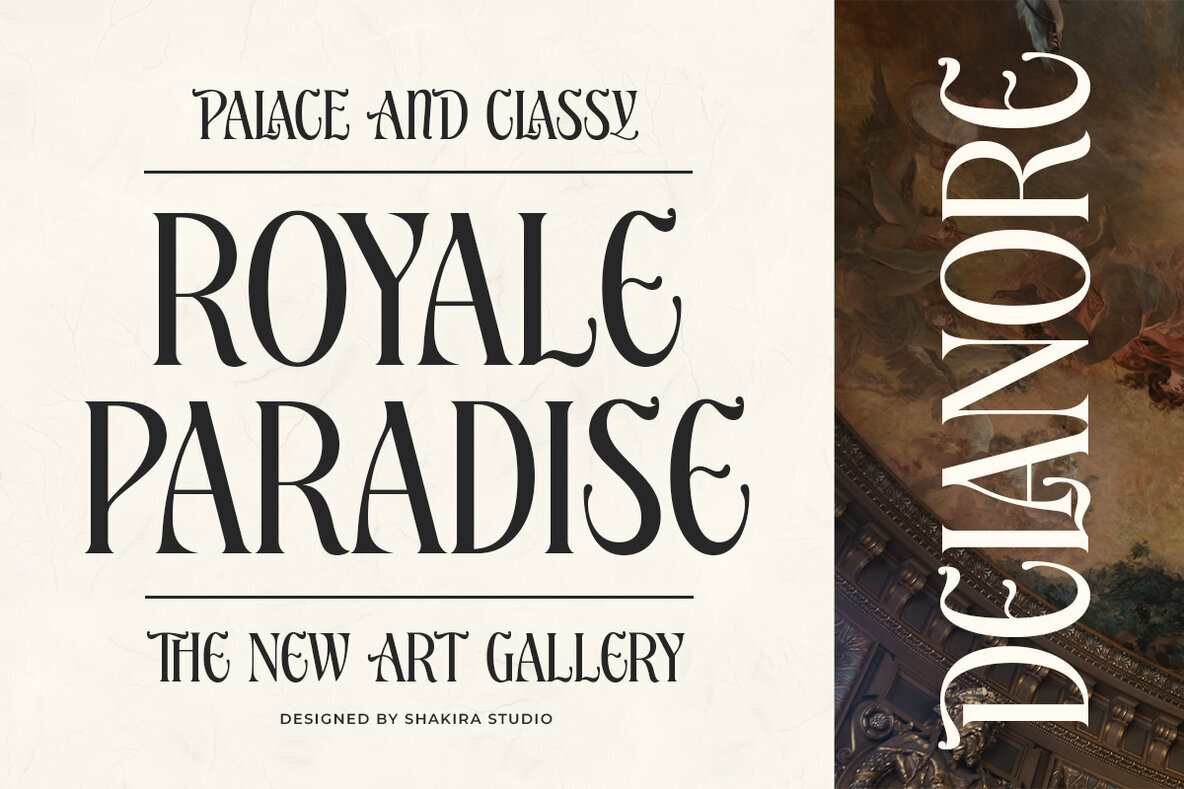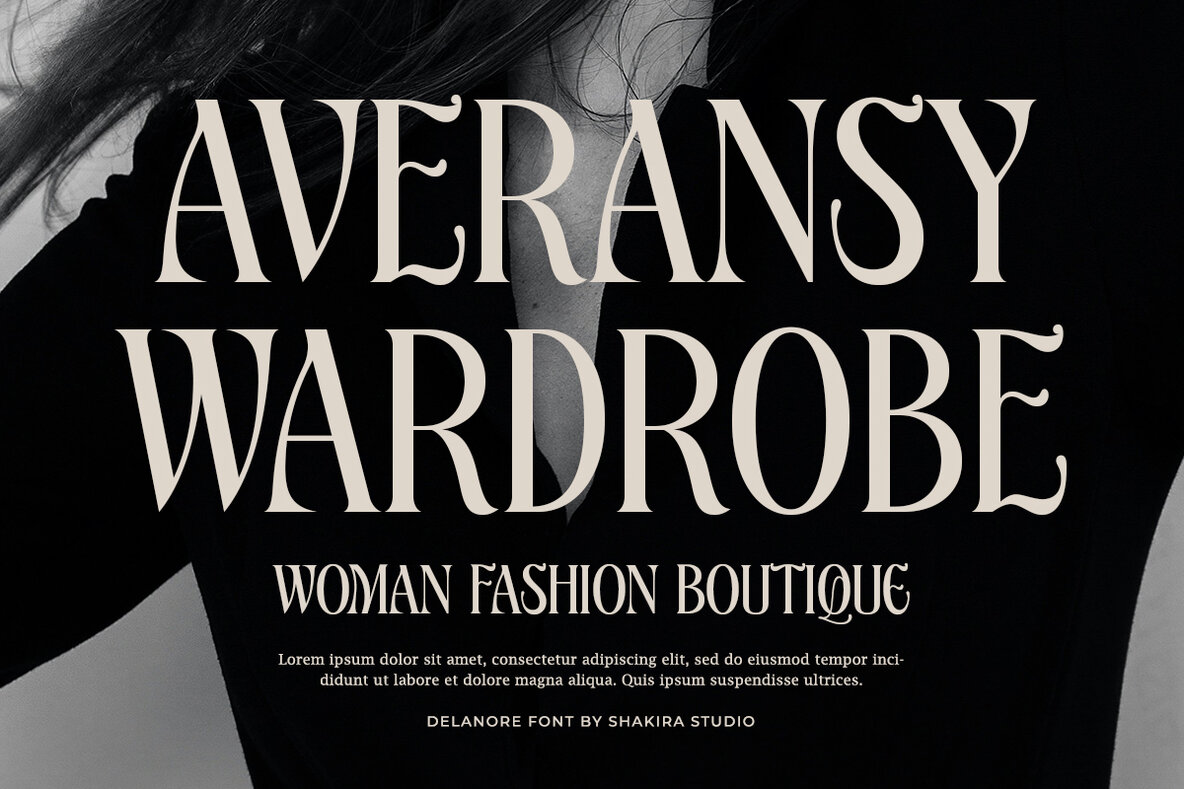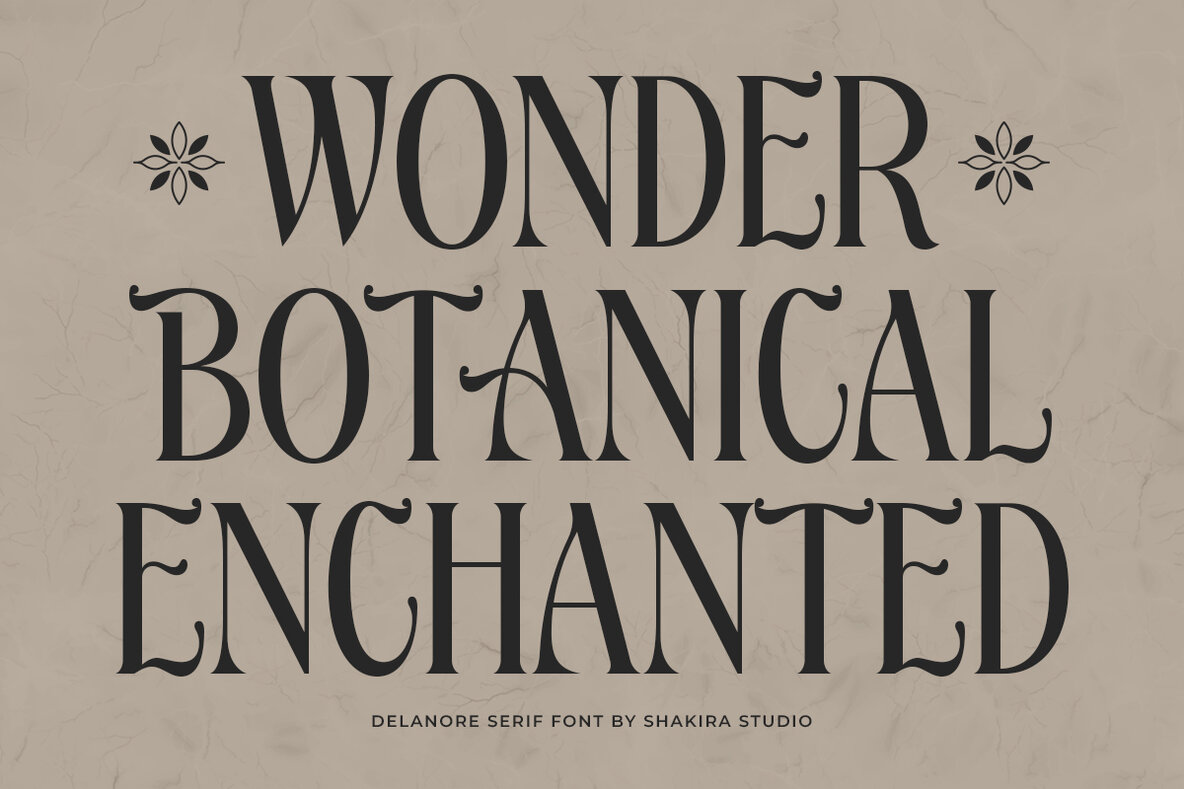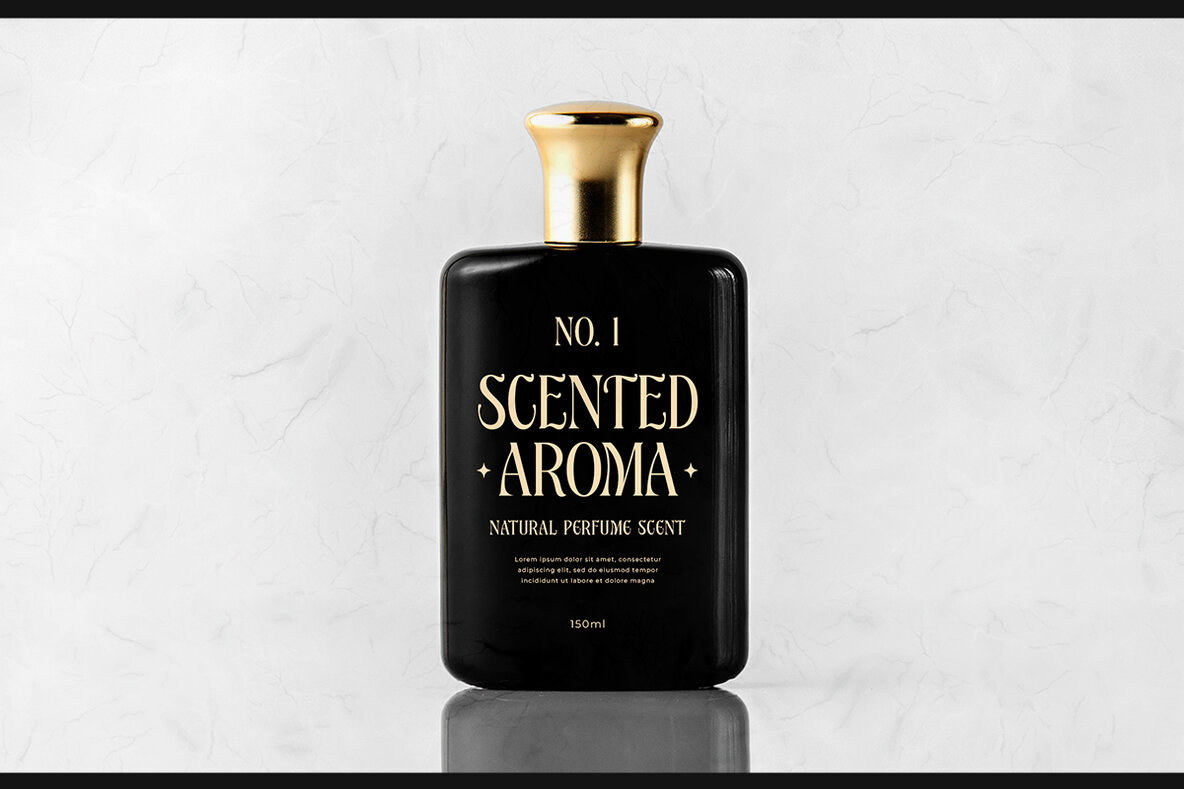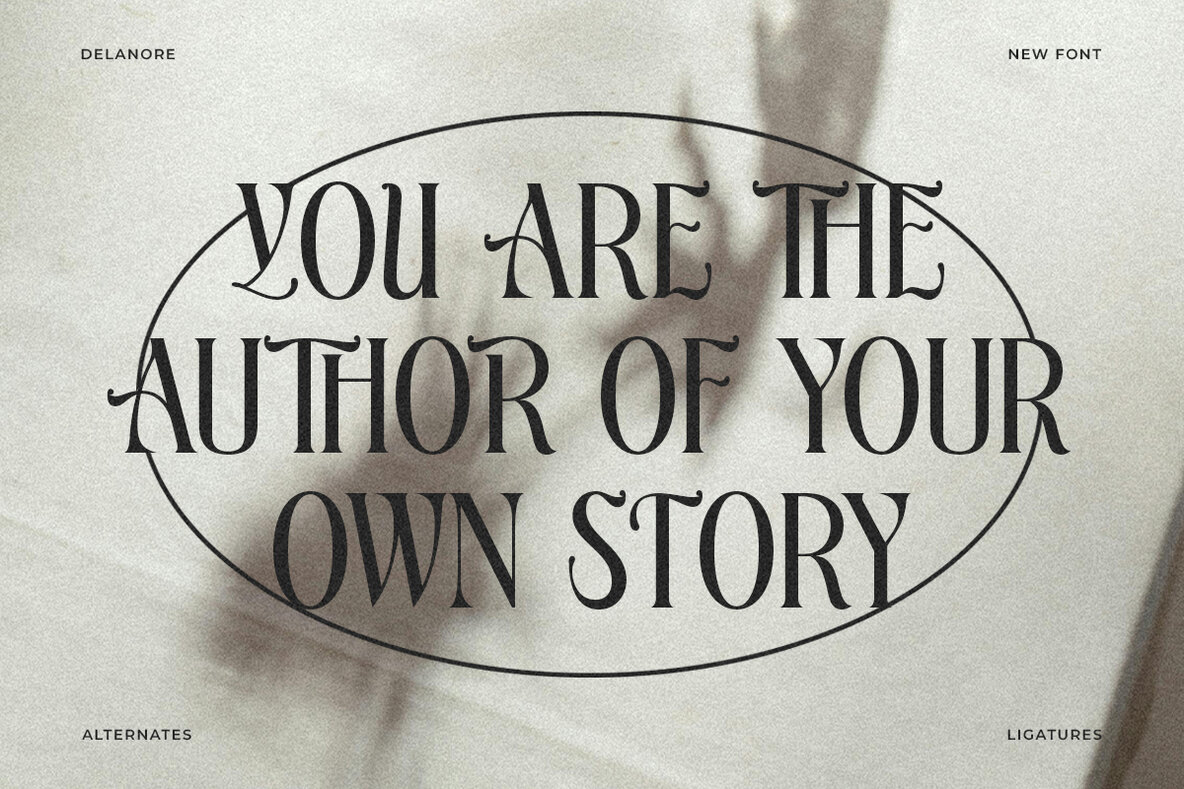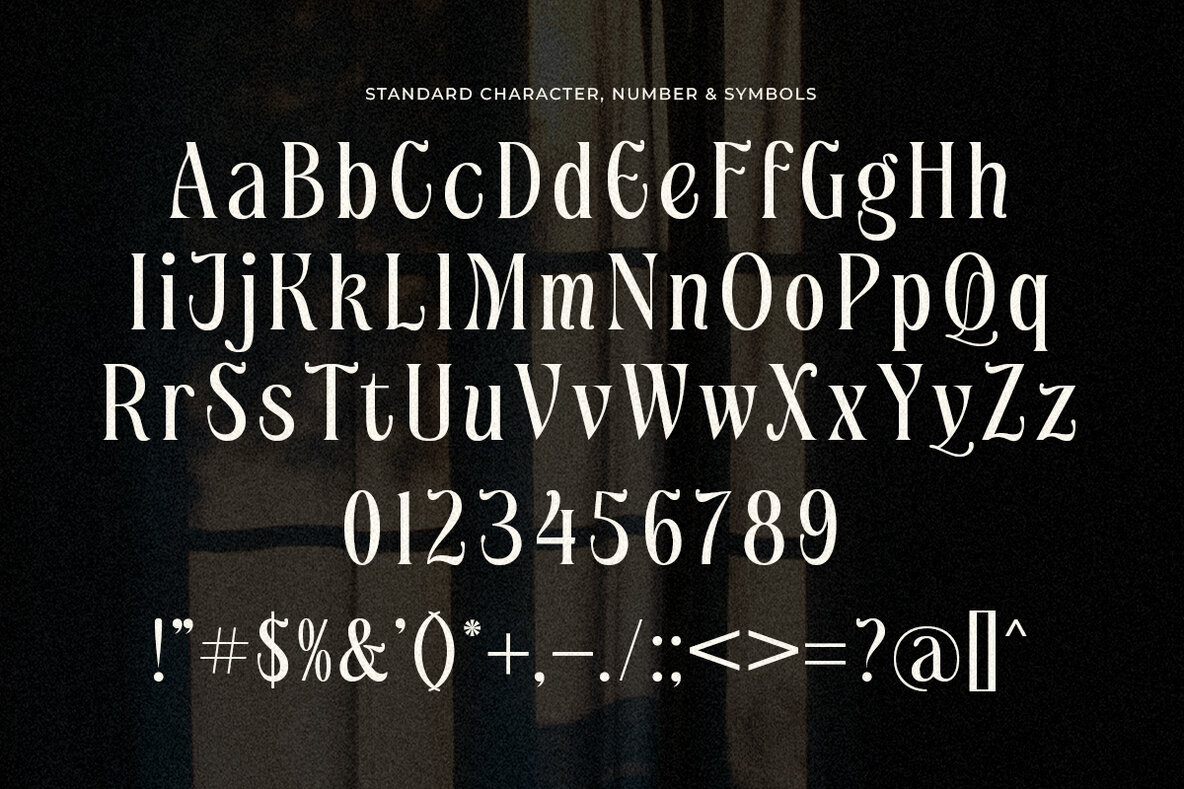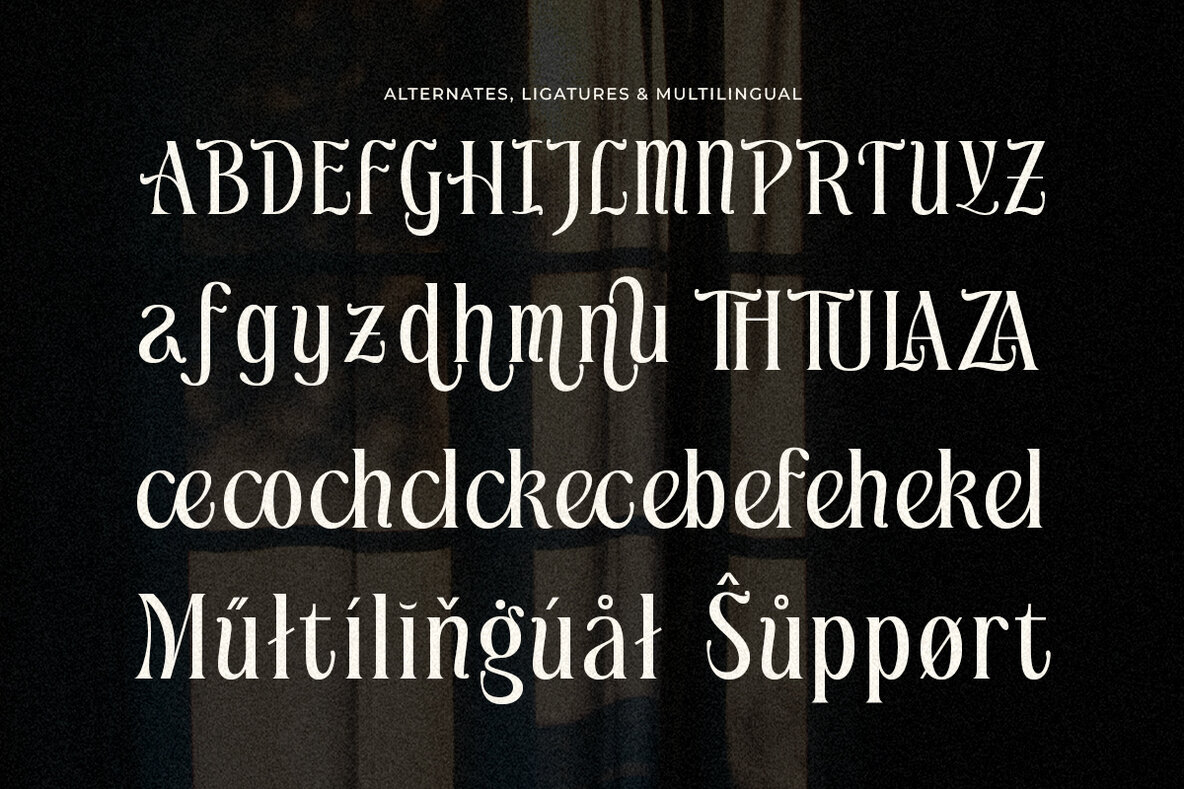
Delanore Font
Delanore Regular
Delanore Italic
Delanore is a sophisticated serif font designed for luxury branding, editorial design, and high-end projects. Available in both regular and italic versions, this typeface is crafted with exceptional attention to detail, featuring stylish alternates and ligatures that enhance your designs. With Delanore, you can effortlessly add a touch of elegance and refinement to your work.
This versatile font includes multilingual support, covering languages such as Afrikaans, Albanian, Catalan, Croatian, Czech, Danish, Dutch, English, Estonian, Finnish, French, German, Hungarian, Icelandic, Italian, Lithuanian, Maltese, Norwegian, Polish, Portuguese, Slovenian, Spanish, Swedish, Turkish, and Zulu. Delanore's OpenType features, including ligatures and alternates, are accessible in Adobe Illustrator, Adobe Photoshop, Adobe InDesign, and even Microsoft Word. Plus, the PUA encoded characters ensure full accessibility without additional design software.